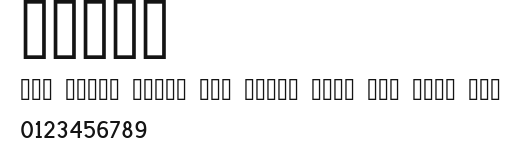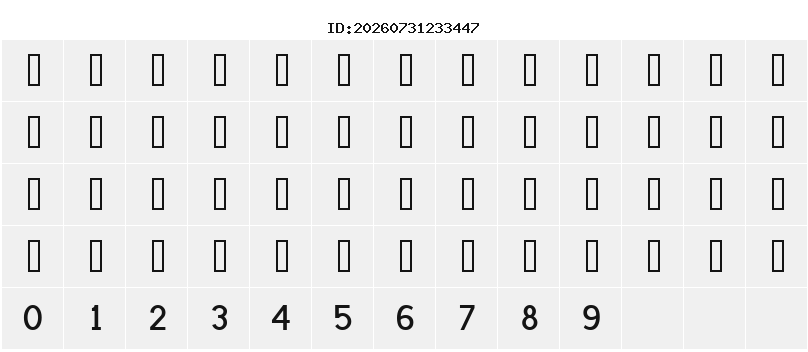
• Font Name: Latha
• Designer: Raghunath Joshi (Type Director), Vikram Gaikwad
• Description: Latha is a font for the Indic script-Tamil. It has been designed for use as a UI font. It is an OpenType font, based on Unicode and contains TrueType outlines.
Latha.ttf is a modern, elegant sans-serif font designed for ultimate readability and visual harmony. Perfect for branding, headlines, web design, and print materials.